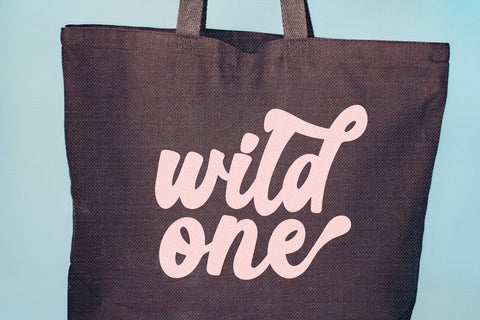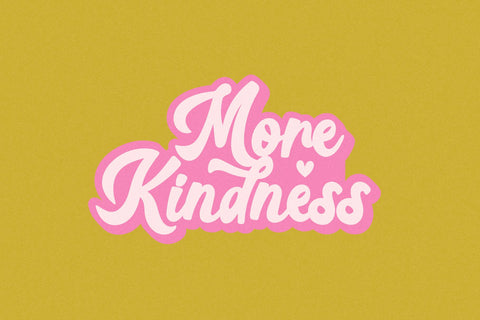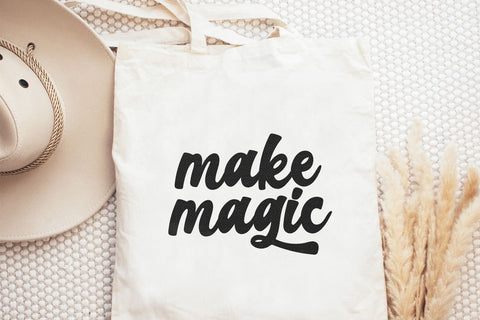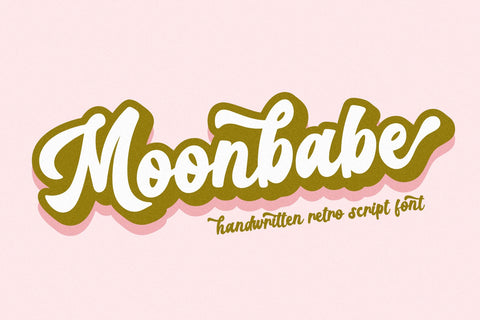
Moonbabe - Retro Script Font
Moonbabe is a groovy/retro handwritten script font.
There are two different styles of fonts included - regular and shadow. Layer these fonts to create fun and unique words and quotes!
This font is perfect for retro designs, procreate, branding, shirts, logos, procreate, stickers, cricut projects, instagram, social media and more!